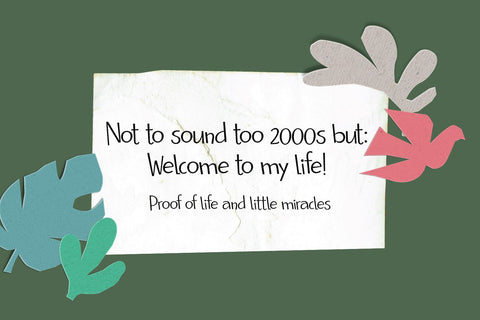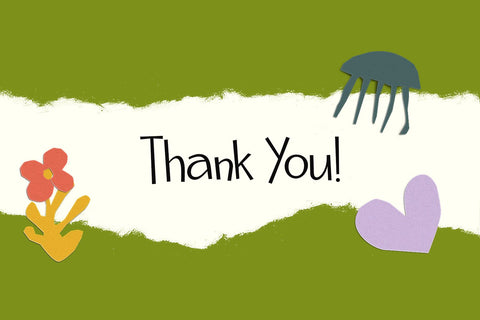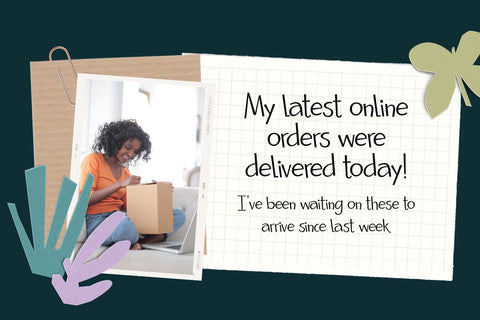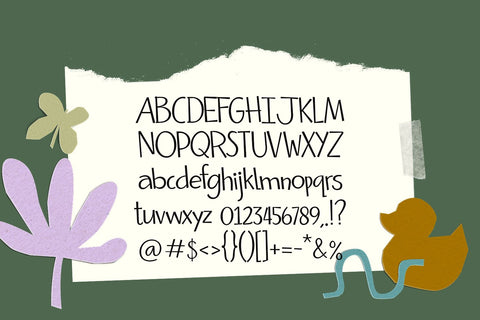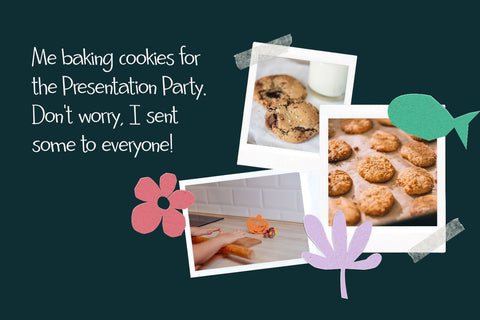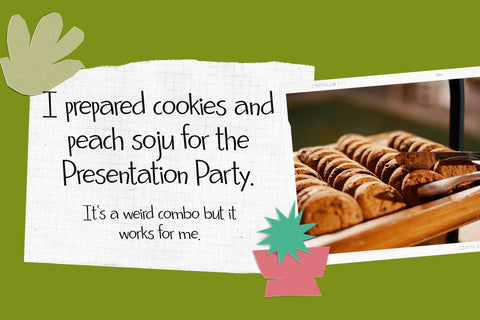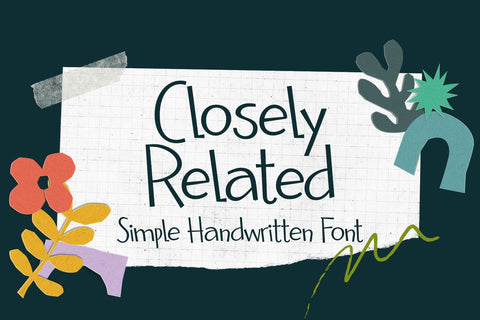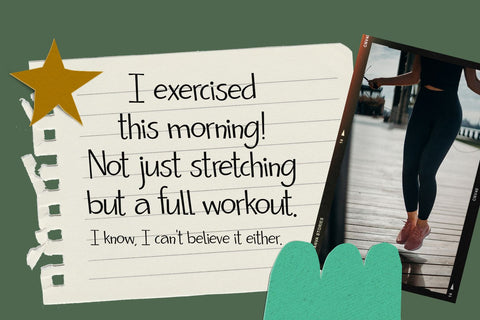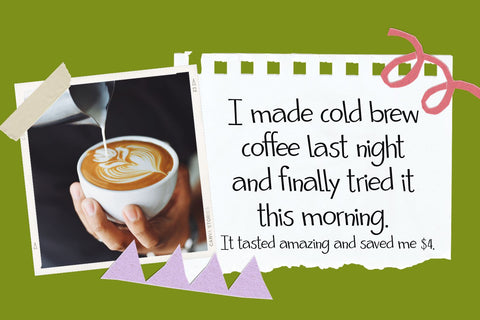
Closely Related - a Simple Handwritten Font
Closely Related is a clean and casual handwritten font. Its natural and unique style makes it incredibly fitting to a large pool of designs. The only limit is your imagination!